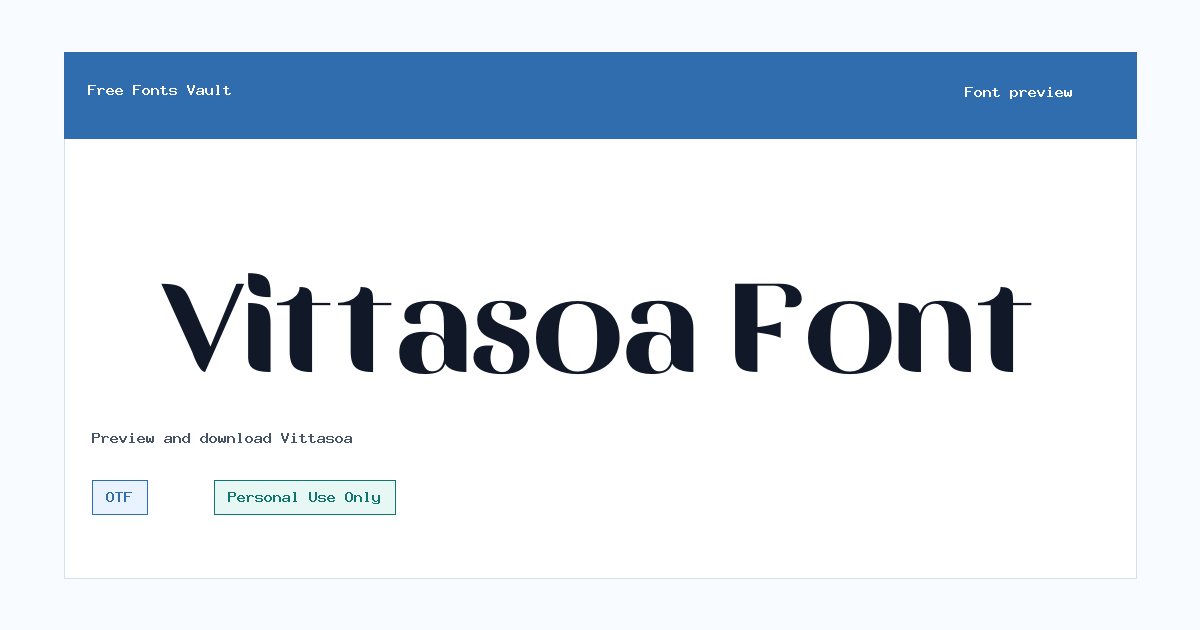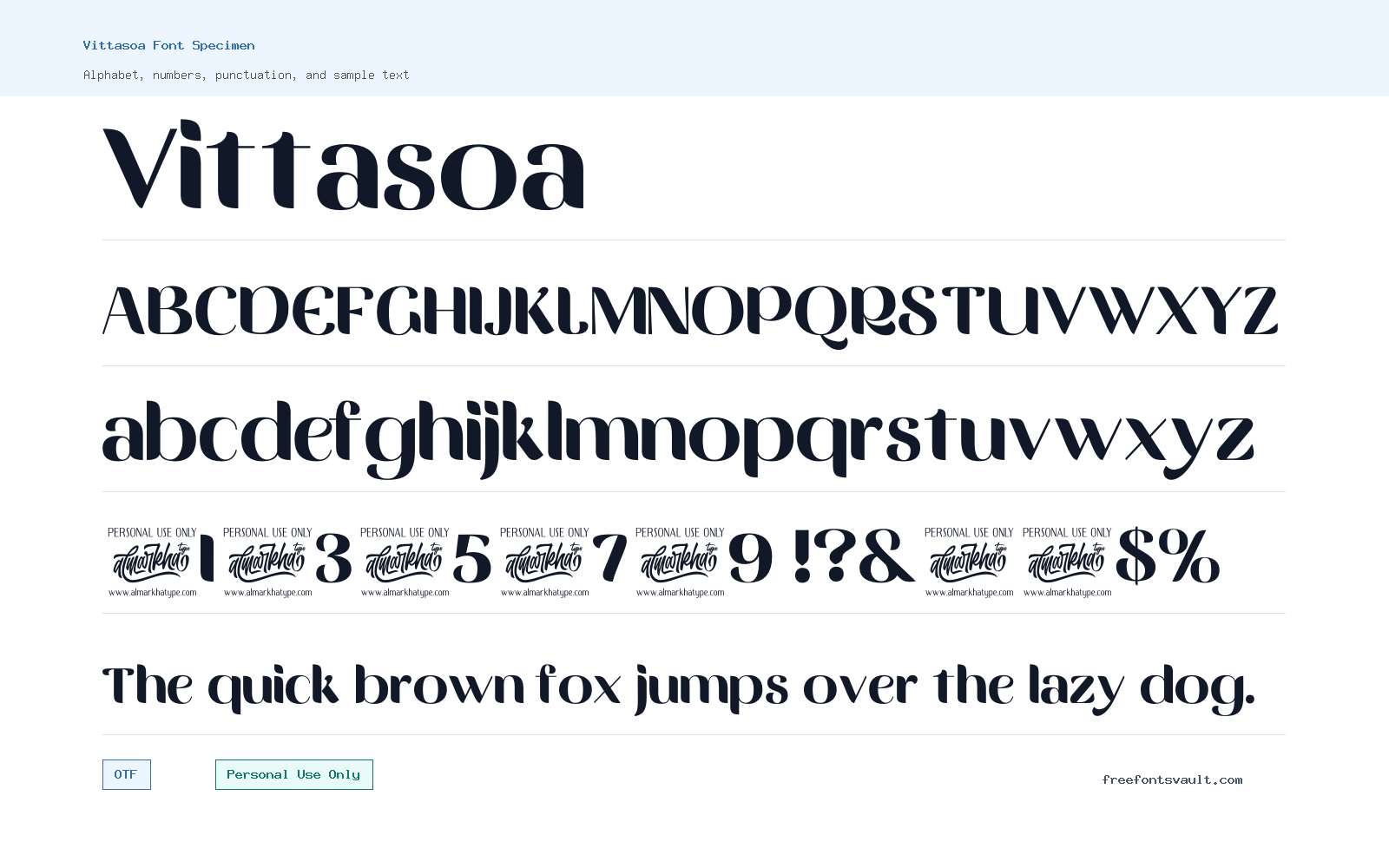
Vittasoa
- Designer Almarkhatype© Studio
Vittasoa is a display font for personal projects, made for short, eye-catching text rather than long reading. Use the preview box to test your own words before downloading, especially if you plan to use it for a logo draft, poster title, social graphic, or branding concept.
Vittasoa works best when you give it space and let the letterforms carry the visual style. Since it is identified as a display font, it is a better fit for headlines, names, covers, thumbnails, quote graphics, packaging mockups, and other places where a few words need personality. It is not the kind of font to choose first for dense paragraphs, small captions, or interface text, because display fonts are usually built for impact at larger sizes.
For logo work, try Vittasoa with the exact brand name, initials, and any punctuation you expect to use. A font can look strong in a sample word but behave differently with repeated letters, tight spacing, or unusual character combinations. Test it in uppercase, lowercase, and title case if those options matter to your design. For posters and web mockups, check the font at the final size you plan to use, then adjust tracking and line spacing carefully. Pair it with a clean sans serif or a quiet serif for body copy so the display lettering stays the main focus.
- Display-focused font suited to short, prominent text
- Logo drafts and personal branding concepts
- Poster titles, covers, thumbnails, and social media graphics
- Web mockup headings and hero text
- Short quotes, labels, and decorative title treatments
What kind of font is Vittasoa?
Vittasoa is identified as a display font. It is best tested in short, prominent text such as titles, logos, posters, and visual mockups.
Is Vittasoa good for body text?
It is better for display use than long paragraphs. For articles, captions, or interface text, pair it with a simpler, more readable font.